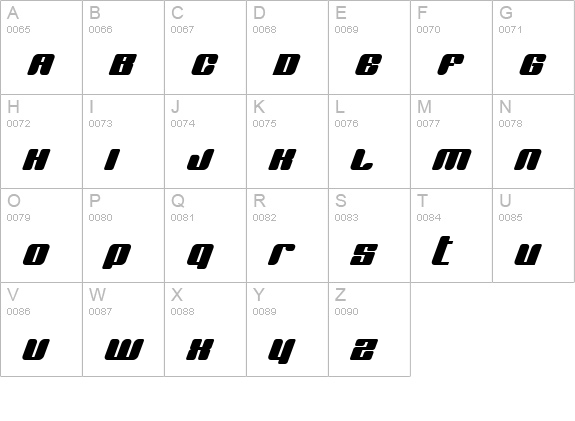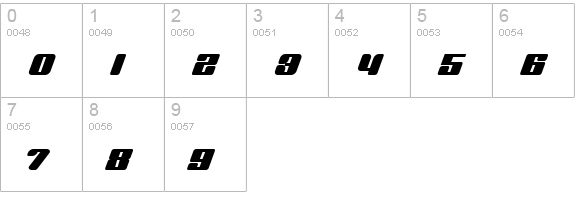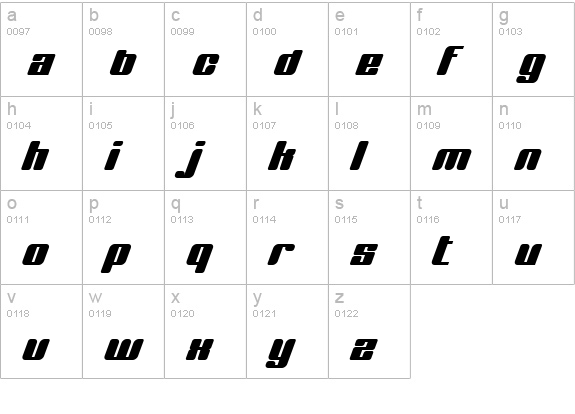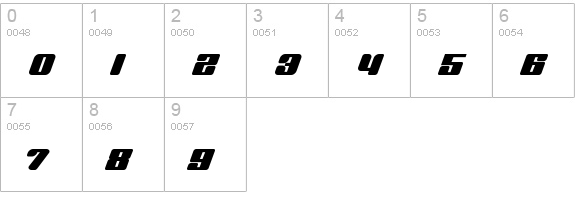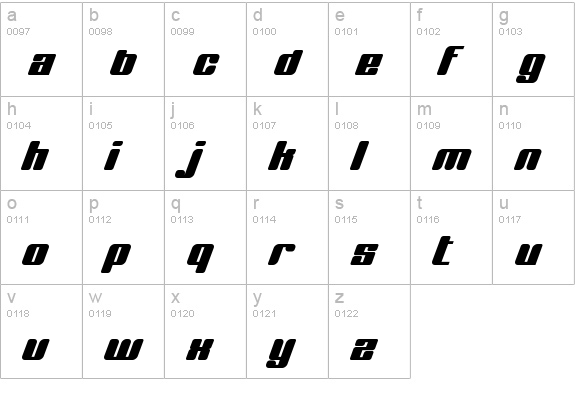
BN Jinx Font Details
Introducing BN Jinx font - a sleek and stylish typeface that exudes elegance and sophistication. With its clean lines and modern design, BN Jinx is perfect for a wide range of projects, from branding to editorial design. This versatile font features a unique blend of sharp angles and smooth curves, creating a visually striking appearance that is sure to captivate your audience. The best part? BN Jinx is completely free to download at FontsMarket.com. This means you can elevate your designs without breaking the bank. Whether you're working on a professional project or a personal passion project, BN Jinx has got you covered. Don't miss out on this opportunity to enhance your typography game with this stunning font. Download BN Jinx today and take your designs to the next level!